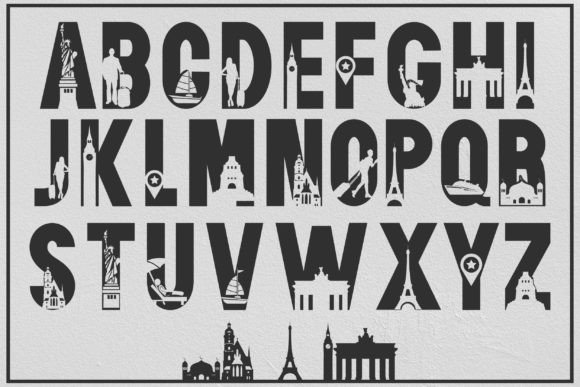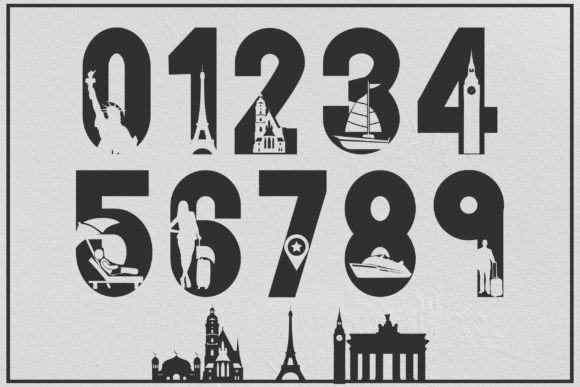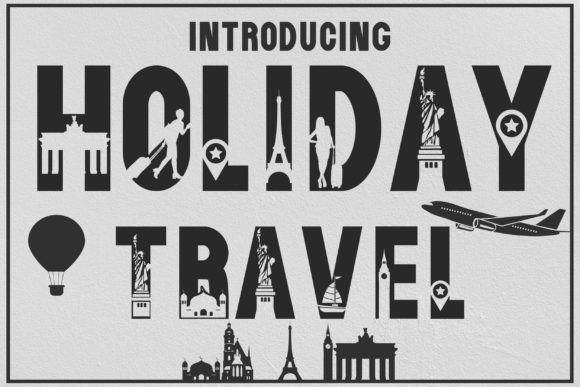
Introduction to Holiday Travel Font
Holiday Travel is a fun, original, and cool decorative font.
It is perfect for various design ideas related to travel This font is PUA encoded which means you can access all of the glyphs and swashes with ease.